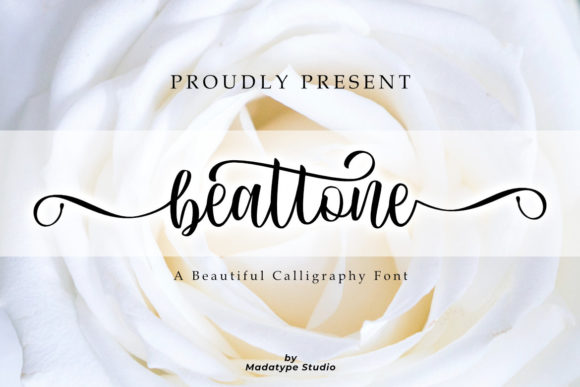
Behold, the Beattone Font, a calligraphic masterpiece that intertwines romance and sweetness in its every letterform. Its characters pirouette across the baseline with a captivating grace that will leave you spellbound. Beattone's casual yet elegant demeanor makes it the perfect choice for those seeking a font that exudes both charm and sophistication.
The Beattone Font, a creation of Madatype Studio, is a PUA encoded font, granting you effortless access to its full repertoire of glyphs and swashes. Unleash your creativity and explore the limitless possibilities of this font, transforming your designs into works of art.
With Beattone, you embark on a journey through a world where words take flight, carrying emotions and messages with a touch of magic. Its versatility extends from T-shirt designs to logos, branding, invitations, and an array of other projects. Beattone's captivating presence will elevate your designs, leaving an unforgettable impression on all who encounter them.
Enter a realm where imagination intertwines with artistry, where your creations transcend the ordinary and become extraordinary. With the Beattone Font, you're not just downloading a font, you're embarking on a creative adventure. Embrace the allure of this font and watch your designs soar to new heights, captivating hearts and minds with their beauty and grace.
Welcome to the world of Beattone, where every word tells a story and every design becomes a masterpiece. Let the dance of its characters inspire you, as you weave your own tale of creativity and passion.